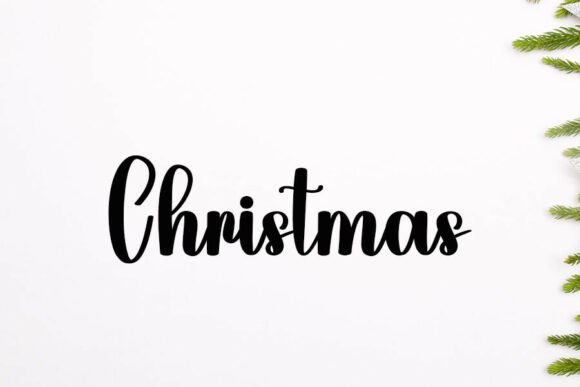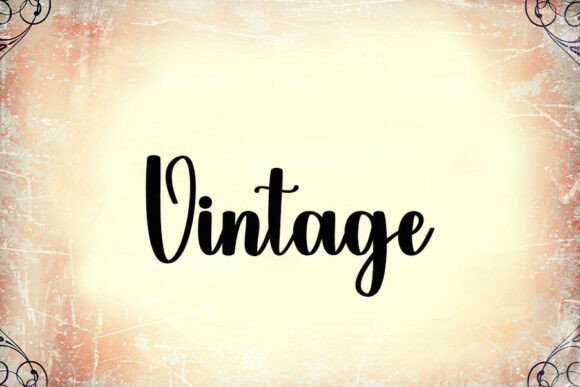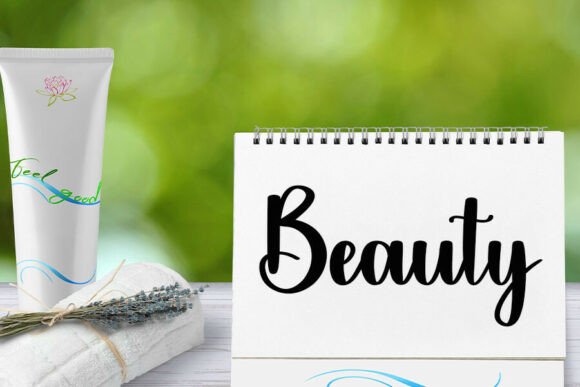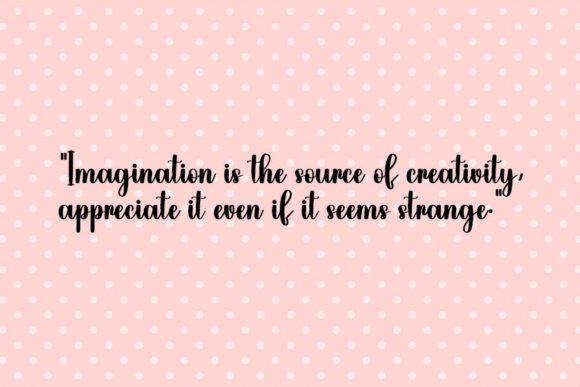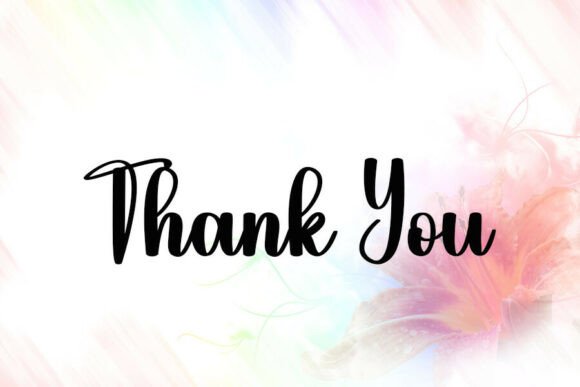
The Sweet Charm of Autography Font: A Designer’s Delight
I’ll never forget the time I was working on a wedding invitation project, and my client asked for a font that was ” elegant, yet casual; romantic, yet playful.” I scoured the internet, tried out countless fonts, but nothing seemed to fit the bill. That was until I stumbled upon Autography Font. ✨ This beautiful, cursive handwritten font has been a game-changer for my designs, and I’m excited to share its charm with you.
An Honest Review of Autography Font
- ✨ Sweet and Cursive: Autography Font is a gentle, cursive script that adds a touch of romance and whimsy to any design.
- ✅ Versatile: This font is perfect for a variety of design projects, from branding and logos to wedding materials, greeting cards, and fashion designs.
- 💕 Emotional Connection: Autography Font has a way of evoking emotions and creating a connection with your audience.
- 👍 Elegant yet Casual: This font strikes the perfect balance between elegance and casualness, making it suitable for a wide range of design applications.
While Autography Font is an amazing font, there are a few things to keep in mind: 🤔
- ⚠️ Legibility at Small Sizes: Like many script fonts, Autography Font can be a bit tricky to read at very small sizes. Make sure to test it out at different sizes to ensure it’s legible for your specific project.
- ⚠️ Kerning: Some users have reported issues with kerning, particularly with certain letter combinations. However, this can often be adjusted in design software.
The Backstory of Autography Font
Autography Font was designed with the intention of creating a beautiful, handwritten script font that captures the essence of elegance and romance. The designer aimed to create a font that would be perfect for a variety of design applications, from wedding materials to fashion designs.
Q: What is Autography Font?
A: Autography Font is a sweet and cursive handwritten font that’s perfect for adding a touch of elegance and romance to your designs.
Q: Can I use Autography Font for my wedding design projects?
A: Absolutely! Autography Font is perfect for wedding design projects, such as invitations, programs, and place cards.
Q: Can I use Autography Font for my fashion brand?
A: Yes, Autography Font would be a great fit for fashion brands that want to add a touch of elegance and sophistication to their designs.